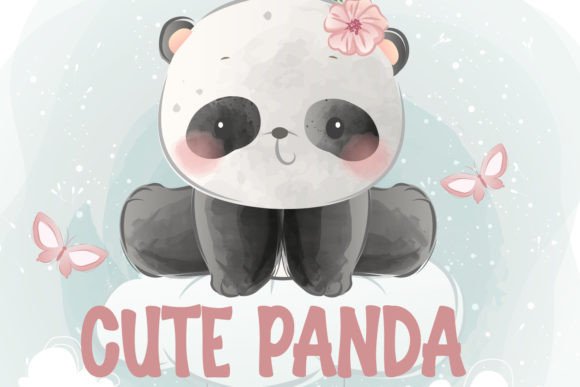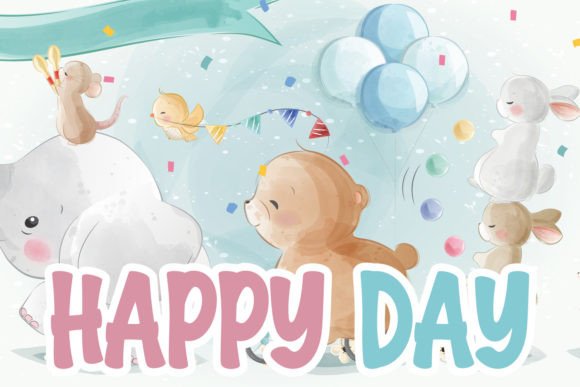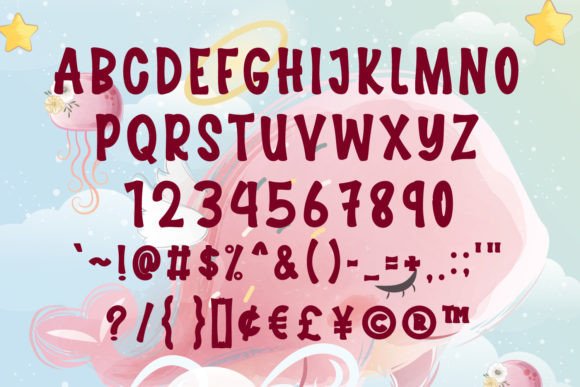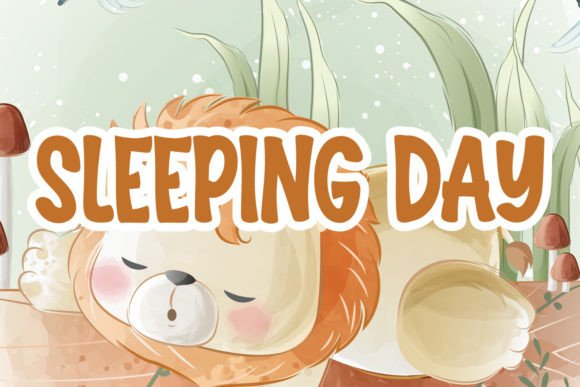
Cute Farmers: The Perfect Font for Whimsical Designs
Are you a designer or crafter looking for a font that embodies playfulness and authenticity? Look no further than Cute Farmers, a friendly display font that’s perfect for children’s activities, elementary school designs, and more. In this article, we’ll dive into the world of Cute Farmers and explore what makes it so special.
What is Cute Farmers?
Cute Farmers is a display font that’s designed to bring a touch of whimsy and charm to your designs. With its playful and authentic feel, it’s the perfect choice for projects that require a friendly and approachable tone. Whether you’re creating materials for kids, designing a logo for a children’s brand, or simply want to add some personality to your craft projects, Cute Farmers is the perfect font for the job.
Key Features of Cute Farmers
So, what makes Cute Farmers so special? Here are just a few of its key features:
- Playful feel: Cute Farmers has a fun and playful feel that’s perfect for kids’ projects and designs.
- Authentic look: The font has an authentic, homemade feel that makes it perfect for craft projects and DIY designs.
- Easy to read: Despite its playful feel, Cute Farmers is still easy to read, making it perfect for designs that require a clear and concise message.
- Versatile: Cute Farmers can be used for a wide range of projects, from children’s activity sheets to logos and branding.
Perfect for Children’s Designs
Cute Farmers is a font that’s specifically designed with children’s designs in mind. Its playful feel and authentic look make it perfect for:
- Children’s activity sheets: Cute Farmers is perfect for creating fun and engaging activity sheets for kids.
- Elementary school designs: The font is also great for designing materials for elementary school classrooms, including worksheets, posters, and more.
- Kids’ logos and branding: If you’re creating a logo or brand identity for a children’s business or product, Cute Farmers is a great choice.
Perfect for Crafters and DIY Designers
Cute Farmers is also a great font for crafters and DIY designers who want to add a personal touch to their projects. The font’s authentic, homemade feel makes it perfect for:
- Handmade crafts: Cute Farmers is perfect for creating labels, tags, and other materials for handmade crafts.
- DIY projects: The font is also great for DIY projects, including scrapbooking, card making, and more.
- Small business branding: If you’re a small business owner who wants to create a friendly and approachable brand identity, Cute Farmers is a great choice.
Tips for Using Cute Farmers
Here are a few tips for getting the most out of Cute Farmers:
- Use it for headings: Cute Farmers is perfect for headings and titles, where its playful feel can really shine.
- Pair it with other fonts: Cute Farmers can be paired with other fonts to create a unique and interesting look.
- Experiment with colors: The font looks great in a wide range of colors, so don’t be afraid to experiment and find the perfect hue for your design.
Cute Farmers is a friendly display font that’s perfect for designers and crafters who want to add a touch of playfulness and authenticity to their projects. With its playful feel, authentic look, and easy readability, it’s the perfect choice for children’s designs, craft projects, and more. So why not give Cute Farmers a try and see what amazing designs you can create?